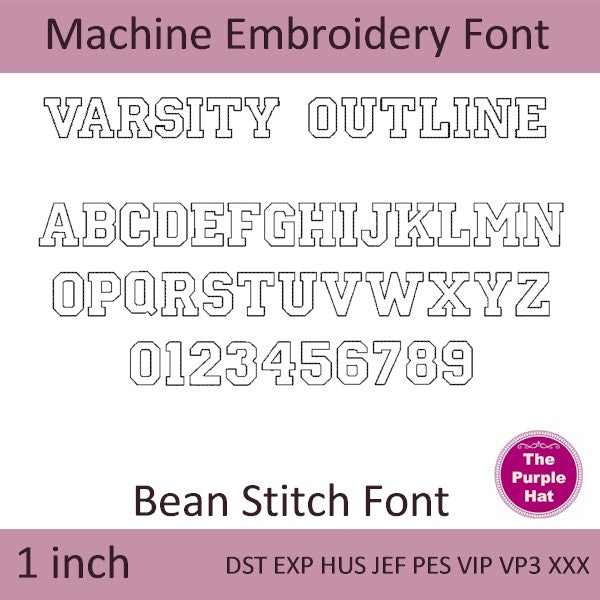
Varsity Outline bean triple stitch machine embroidery font 1 inch
🏅 Varsity Outline Triple Run Font
A bold and sporty font, perfect for athletic, school, and spirit-themed embroidery projects!
🧵 Name: Varsity Outline
🔠 Uppercase Letters: A-Z
🔢 Numbers: 0-9
📏 Size: 1 inch
✨ Style: Triple run outline for a clean, classic varsity look
🎓 Show your team spirit and stitch like a champion with the Varsity Outline font!